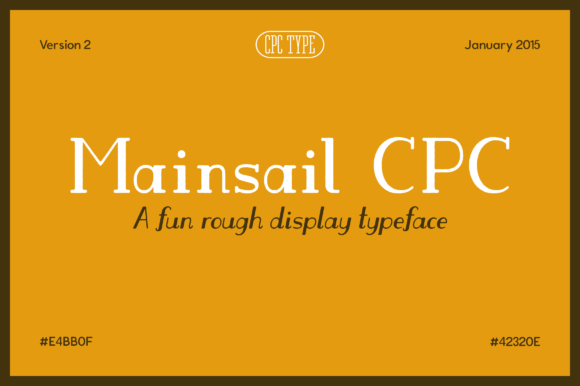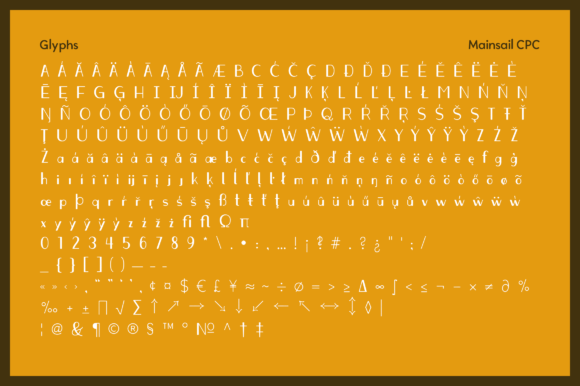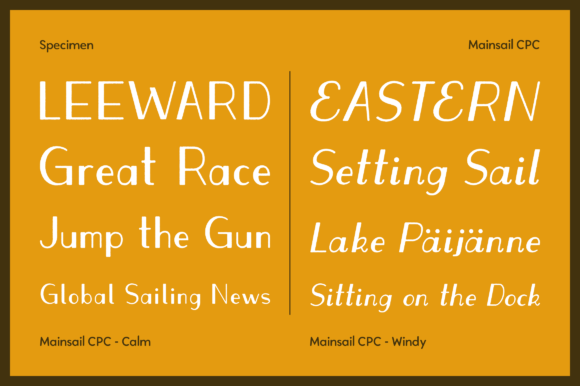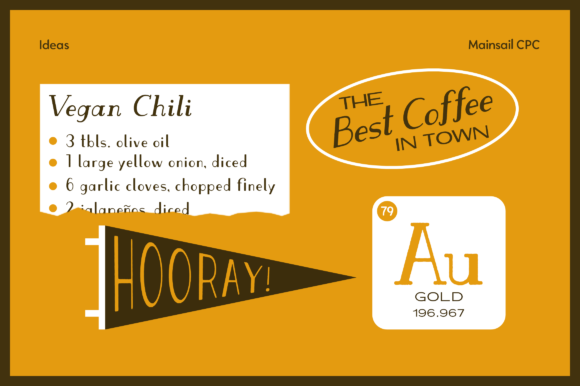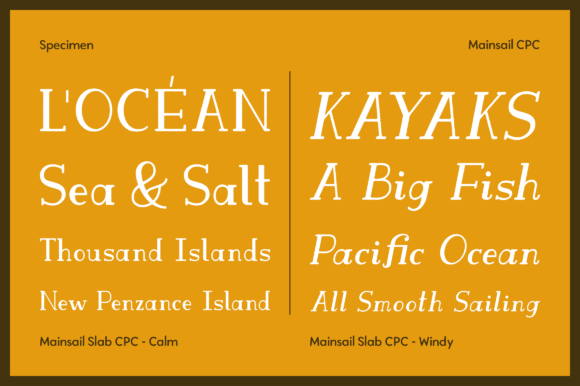
Mainsail CPC: A Cool and Vintage Styled Slab Serif Font
Mainsail CPC is a cool and vintage styled slab serif font that can elevate any creation. This font is an incredible asset to your fonts library, suitable for a wide range of projects.
Key Features of Mainsail CPC
- Vintage Style: Offers a classic and timeless look suitable for various applications.
- Slab Serif Structure: Features thick, rectangular serifs typical of slab serif fonts.
- Versatile Application: Ideal for both modern and vintage design projects.
- Cool Aesthetic: Designed to enhance the visual appeal of any creation.
Ideal Uses for Mainsail CPC
Mainsail CPC’s unique characteristics make it particularly well-suited for:
- Logo design and branding
- Creative posters and advertisements
- Headlines and magazine layouts
- Book covers and title pages
- Web layouts and digital content
- Typography projects needing a modern touch
- Fashion magazine headings
When incorporating Mainsail CPC into your designs, consider these tips:
- Use for headlines or short blocks of text to showcase its vintage style.
- Experiment with different sizes to highlight the font’s distinctive features.
- Consider pairing with simpler sans-serif fonts for body text to create contrast.
- Utilize its cool aesthetic across various creative projects to enhance visual appeal.
Mainsail CPC is an excellent choice for designers looking to add a vintage styled slab serif font to their typographic toolkit. Its ability to bring style and versatility to various design projects makes it stand out in the world of typography. Whether you’re working on logos, creating layouts for magazines, or developing content that requires a touch of nostalgia, Mainsail CPC offers the perfect blend of style and functionality.
Furthermore, Mainsail CPC’s unique design allows it to shine in various contexts. From vintage-inspired designs with a modern twist to more contemporary layouts that need a touch of uniqueness, this font can elevate your projects. Its striking yet functional style works particularly well in designs that require a thoughtful and engaging mood.
In conclusion, Mainsail CPC is a font that truly captures the essence of creativity and impact in typography. Its ability to work well in both minimalist projects and more elaborate layouts showcases its flexibility. For those looking to add a touch of unique charm to their work, Mainsail CPC can even enhance themed creations with its distinctive style. It’s the perfect choice for designers seeking to make a strong, stylish impact across a wide range of creative projects.